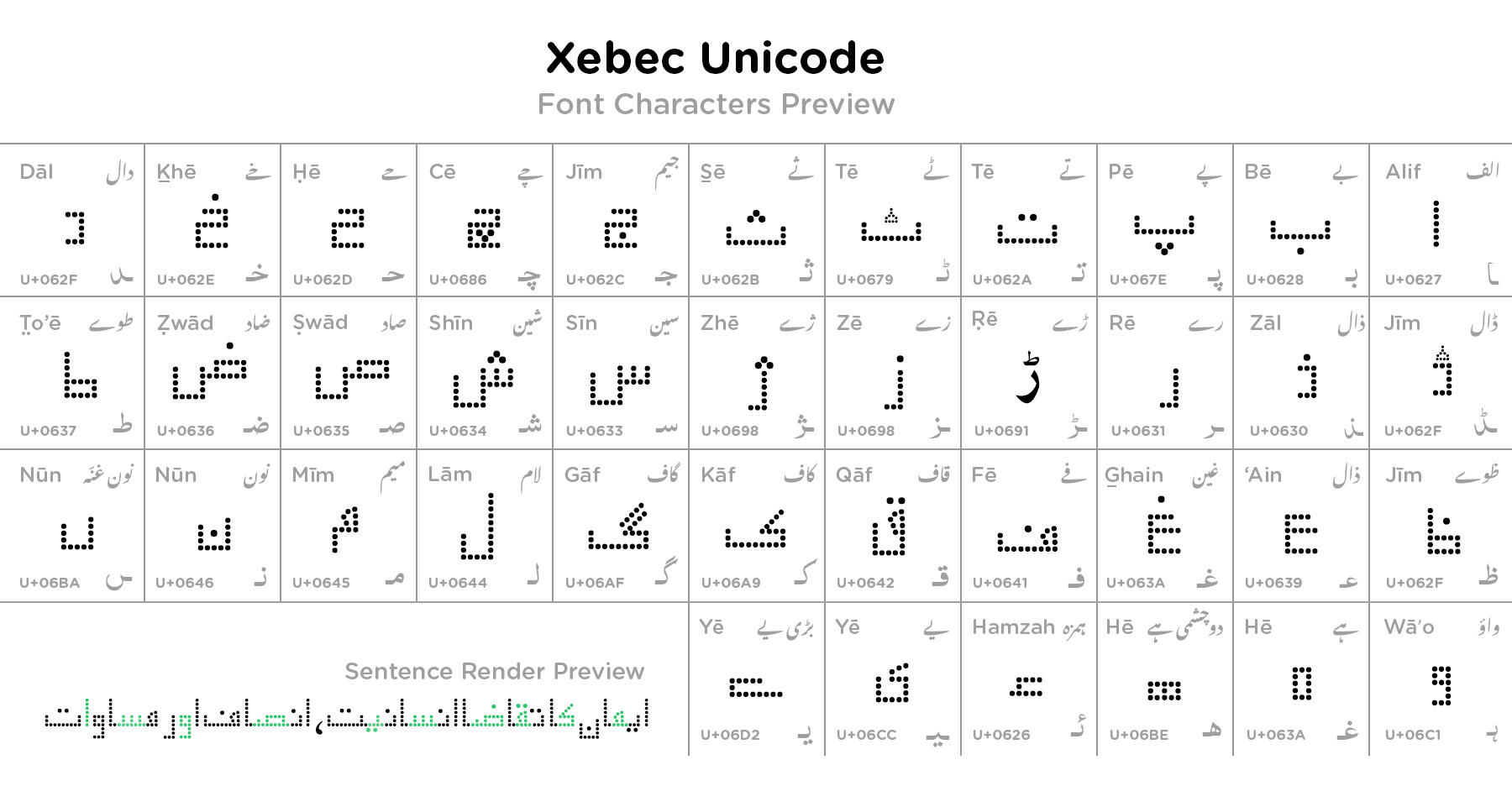
Xebec Unicode is a dotted Urdu font that was designed by Syed Manzar Hasan Zaidi who worked for Axis Softmedia Pvt. Ltd. Thus, this font is the property of Axis Softmedia Pvt. Ltd. It includes a comprehensive character set that covers all of the letters and symbols used in Arabic writing. It has a character set of 433 and 497 number of glyphs. It supports not only Arabic but also Latin and Greek. Moreover, it is compatible with 11 Unicode blocks including Basic Latin, Arabic, Greek and Coptic, and Currency Symbol among others. Even when zoomed in or printed in small ratios, it retains a high level of quality. The most distinctive feature of Xebec Unicode is that all of the letters are made up of small circles. This gives the font a playful and whimsical feel. The circles that make up the letters are all the same size, giving the font a geometric look. It's a popular choice for children's books and other media that is aimed at a young audience due to its distinct playful appearance.